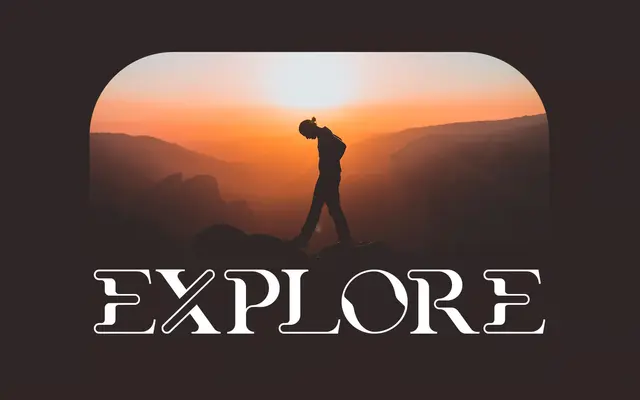
Mahezty
A single-weight bold display serif aimed at fashion and lifestyle branding, with pronounced letterform character.
A bold display serif with high-contrast strokes and distinctive letter shaping, positioned for decorative use across branding, packaging and poster work. Available in one weight with no italic or condensed variants, it covers Latin Extended characters for broad Western European language support. The pitch is squarely at fashion and lifestyle contexts where a strong, singular typographic statement is needed.
A bold, high-contrast serif designed explicitly for display use, with distinctively shaped letterforms intended for headlines and decorative applications rather than body text.